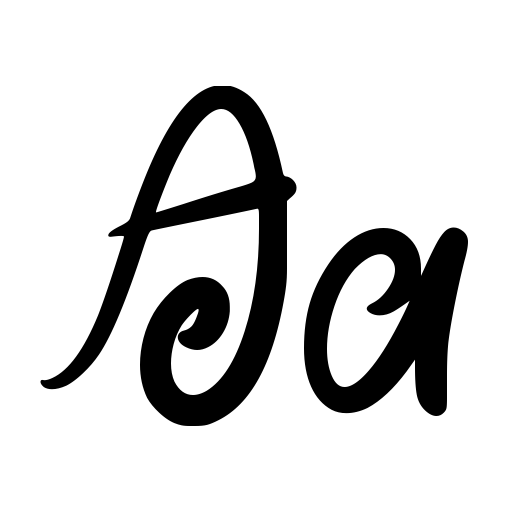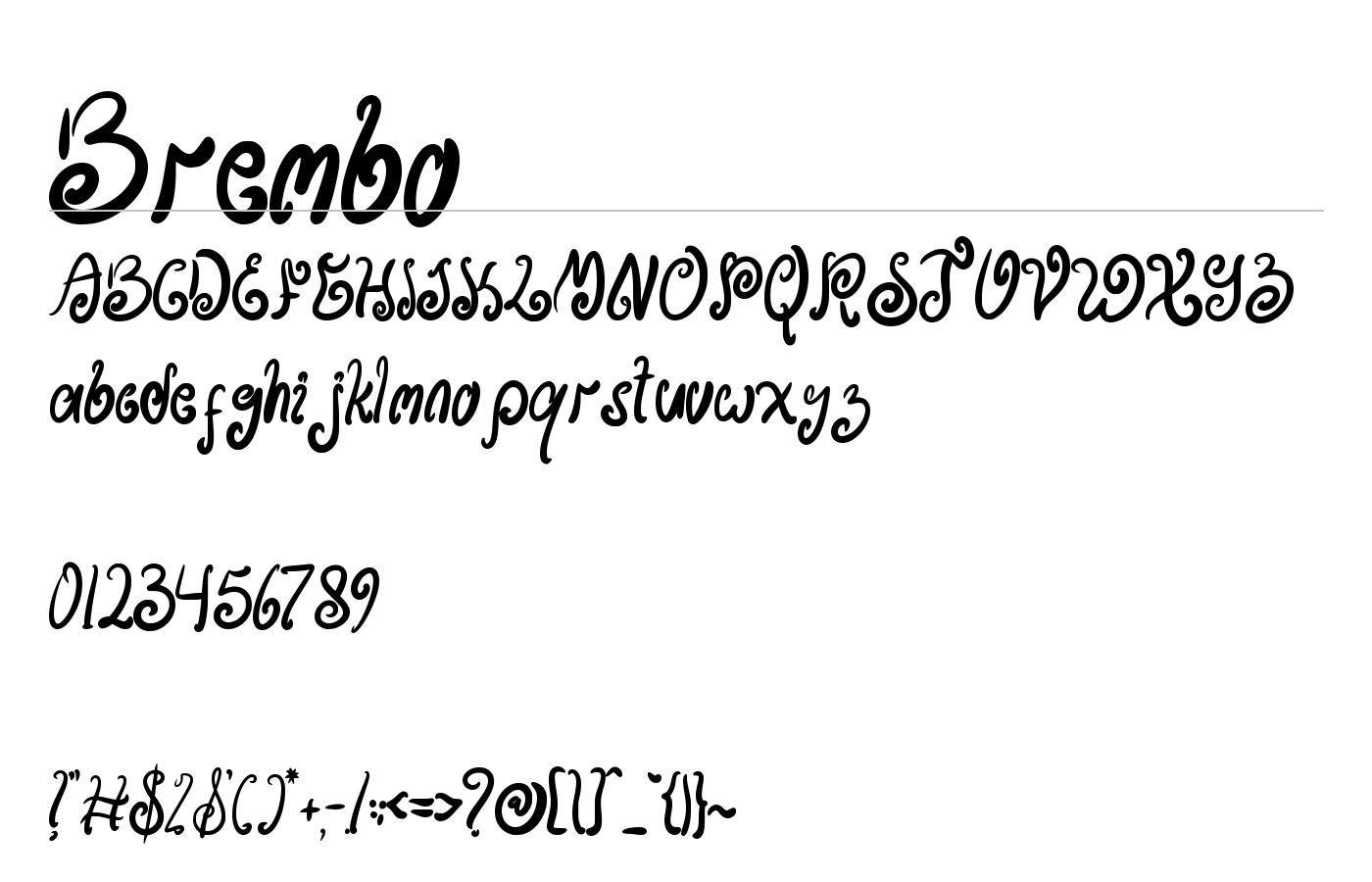
Brembo Font is a playful and decorative script typeface with a lively, handwritten feel showcasing curly and swirly letterforms. Its casual yet stylish appearance makes it perfect for creative projects, branding, or headlines where a fun and unique personality is desired. This font works well in designs that aim to stand out and convey friendliness and creativity.
| Font family | Brembo Font |
| Designer | Yoga Letter 2023 (Isroni Yoga Prasetya) |